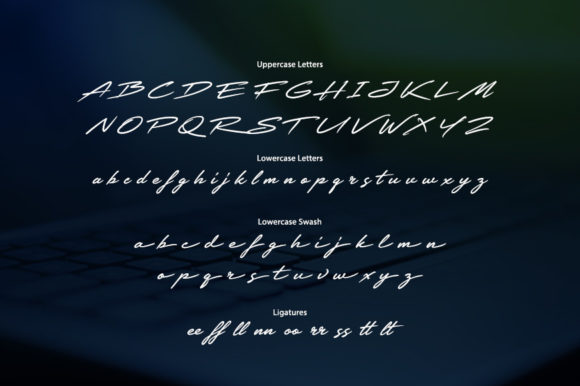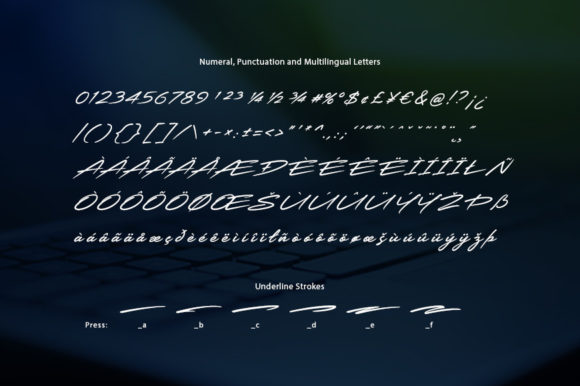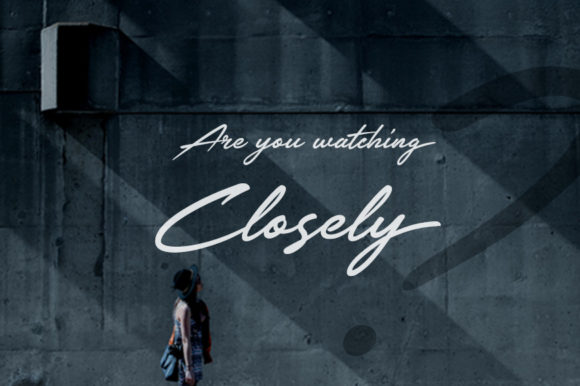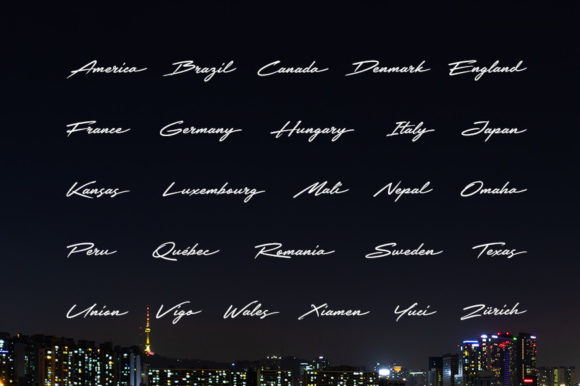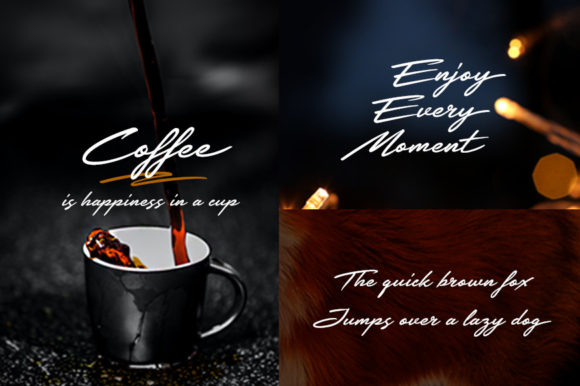
Introducing City Font: Elevate Your Designs with Elegance and Sophistication
In the world of typography, fonts play a crucial role in defining the aesthetic and tone of a design project. For designers and crafters looking to infuse their creations with a touch of elegance and sophistication, City Font emerges as an exceptional choice. This stylish and dainty script font is not just a typeface; it’s a design element that can transform your projects into visually stunning pieces of art. Whether you’re working on logos, branding projects, labels, photography, watermarks, or planning special events, City Font is the perfect companion to bring your creative visions to life.
The Essence of City Font
City Font is characterized by its delicate and stylish script, which exudes a sense of luxury and refinement. Its intricate details and fluid strokes make it stand out from more conventional fonts, offering a unique charm that can elevate any design. The font’s versatility is one of its most compelling features, making it suitable for a wide range of applications. From the elegance required for wedding invitations and event branding to the subtle sophistication needed for product labels and watermarks, City Font adapts seamlessly.
Applications of City Font
- Logos and Branding Projects: For businesses aiming to establish a premium or boutique image, City Font can be a game-changer. Its distinctive style can help create memorable logos and brand identities that stand out in competitive markets.
- Labels and Packaging: Adding a touch of elegance to product labels or packaging can significantly enhance the perceived value of the product. City Font offers a sophisticated look that can appeal to customers looking for luxury or high-end products.
- Photography and Watermarks: Photographers can use City Font to add a professional and artistic touch to their work. The font’s subtle elegance can complement the visual elements of photographs without overpowering them, making it ideal for watermarks or credits.
- Special Events: For event planners and designers, City Font can add a touch of class to invitations, programs, and other event materials. Its stylish appearance makes it perfect for weddings, galas, and other sophisticated gatherings.
Why Choose City Font?
Choosing City Font for your design projects comes with several advantages:
- Elegance and Versatility: The font’s elegant design and versatile nature make it suitable for a wide range of projects, from digital designs to print materials.
- Easy to Read: Despite its intricate details, City Font remains highly legible, ensuring that your message is conveyed clearly and effectively.
- Customizable: The font can be customized to fit your project’s specific needs, allowing for creative freedom and flexibility.
Tips for Using City Font Effectively
To maximize the impact of City Font in your designs, consider the following tips:
- Pair with Complementary Fonts: Combining City Font with simpler fonts can create a visually appealing contrast that enhances your design.
- Adjust Size and Color: Experiment with different sizes and colors to ensure the font complements your design’s overall aesthetic.
- Consider the Context: Tailor your use of City Font to the specific project, ensuring it aligns with the intended message and audience.
City Font is more than just a script font; it’s a design tool that can elevate your projects with its stylish and dainty charm. Its versatility, elegance, and readability make it an excellent choice for designers and crafters looking to add a touch of sophistication to their work. Whether you’re creating logos, branding materials, labels, or planning special events, City Font is a valuable asset that can help you achieve your creative goals. Embrace City Font in your next project and experience the transformation it brings to your designs.